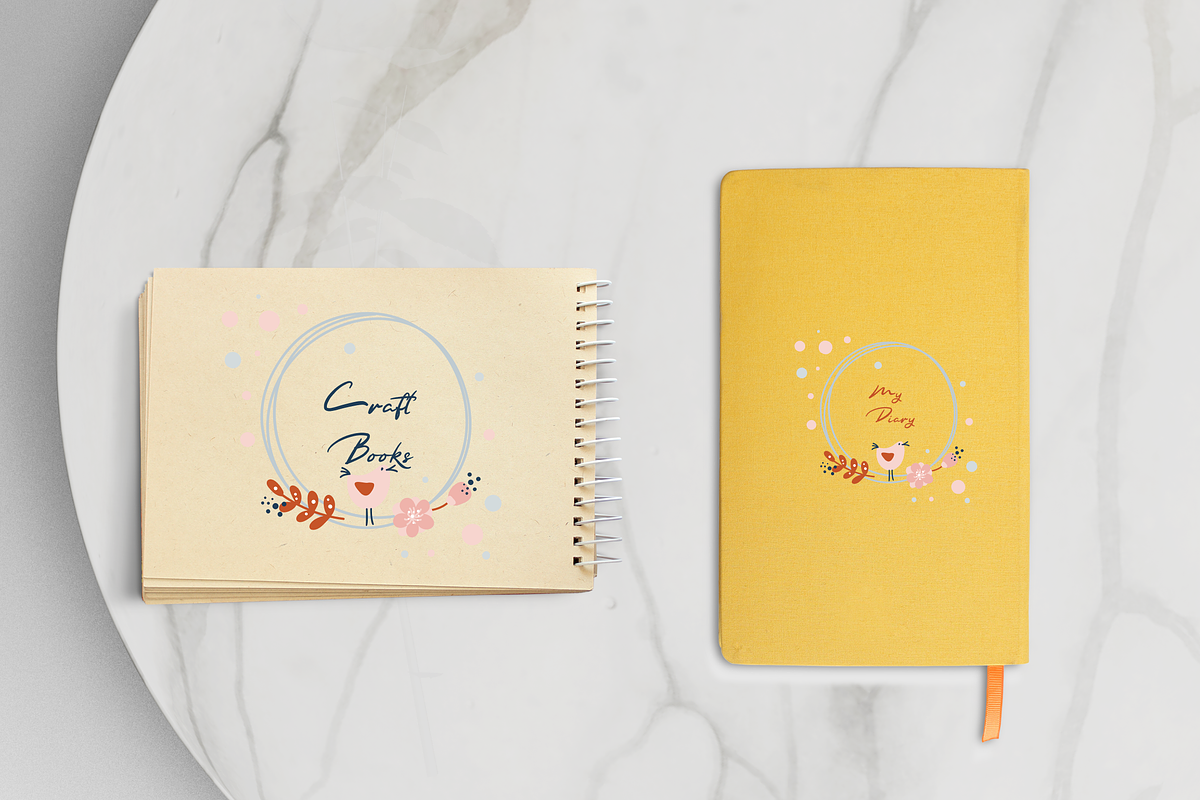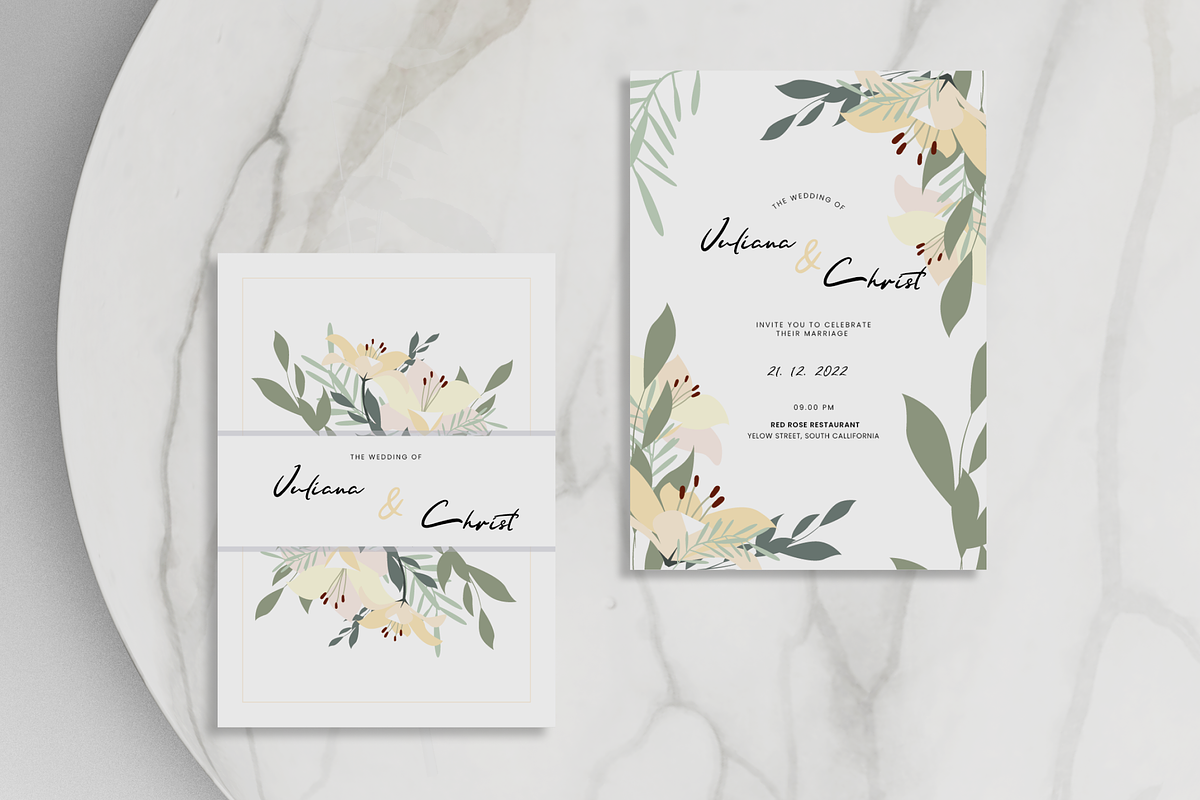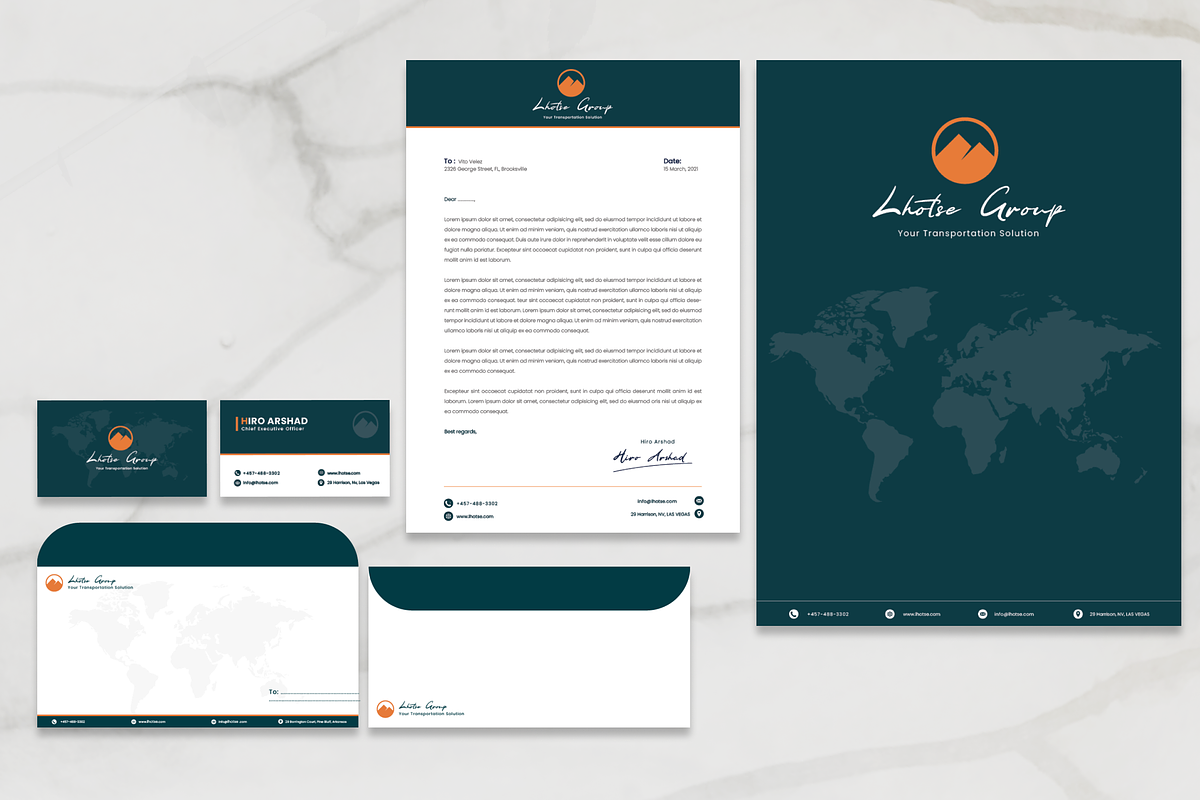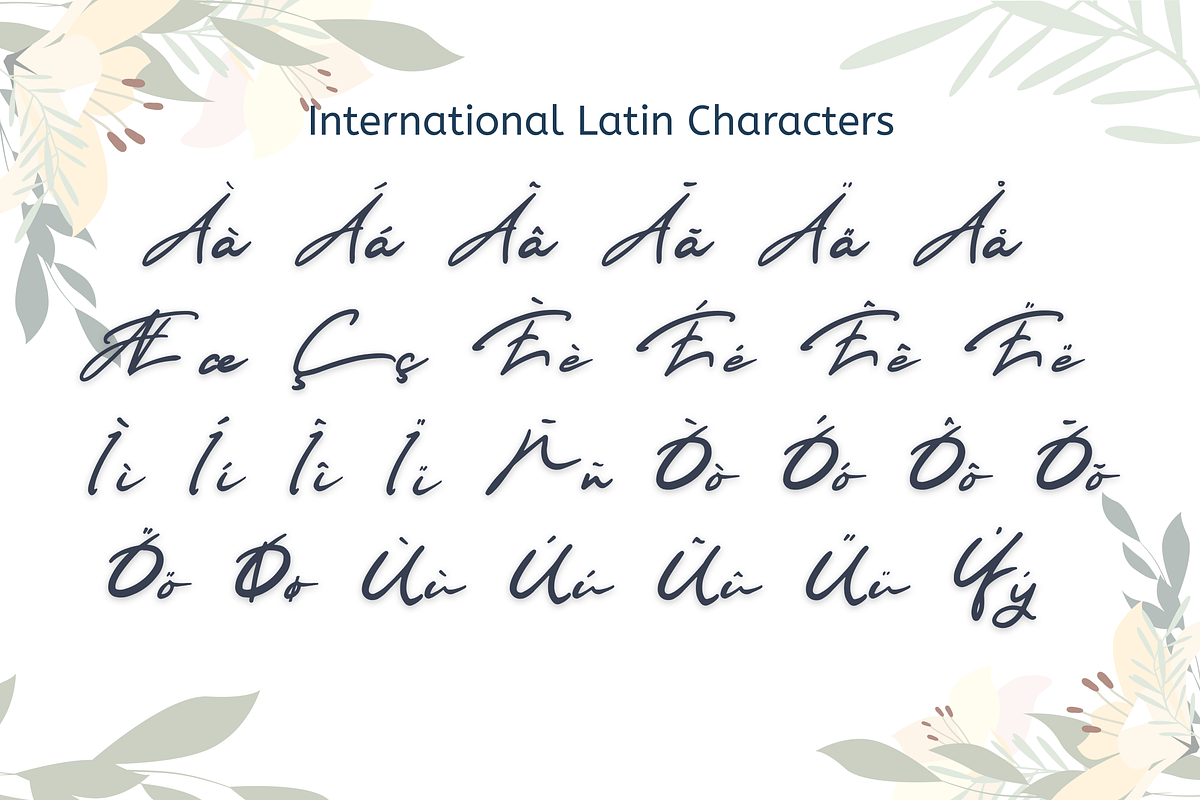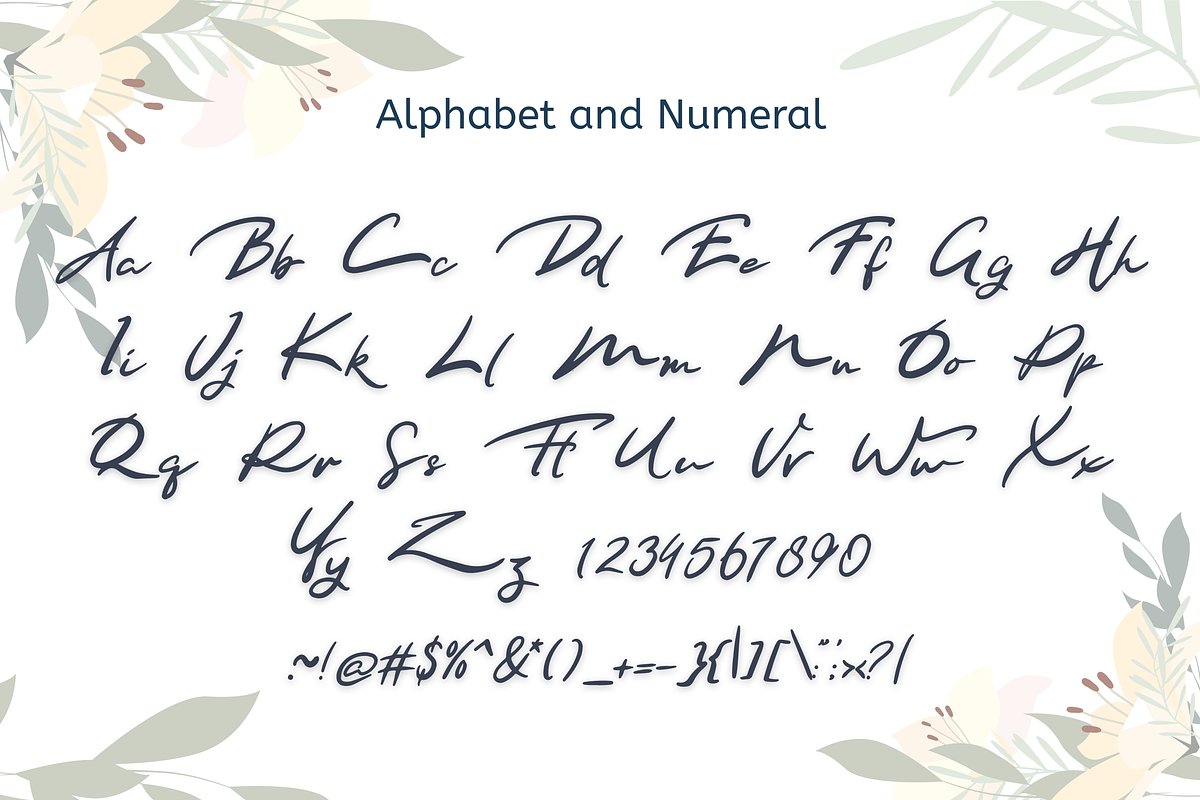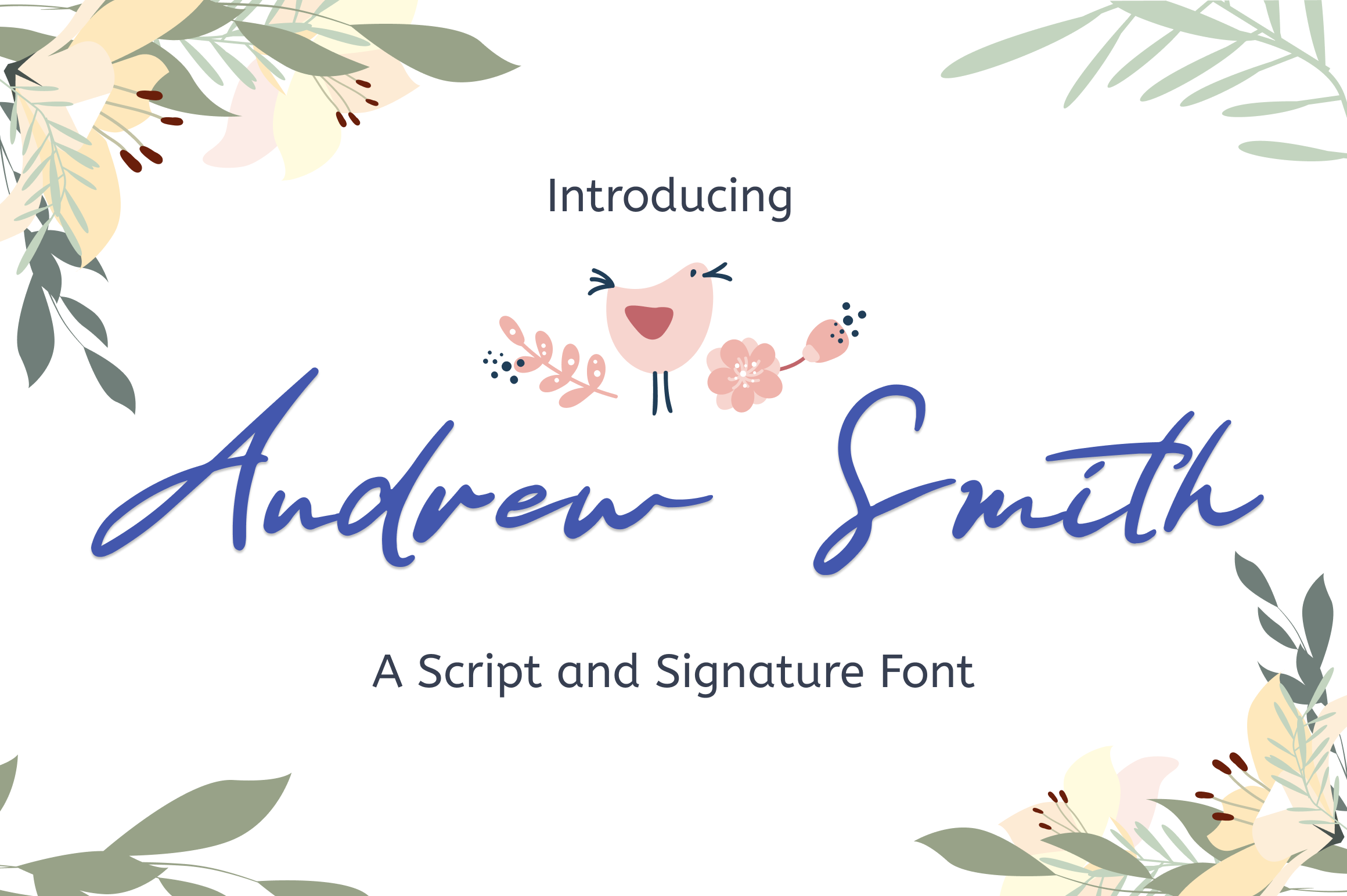
Andrew Smith Handwritten Script Font
Andrew Smith Handwritten Script Font is a flowing signature script font, described by an elegant touch, perfect for your favorite projects. Fall in love with its incredibly distinct and timeless style and use it to create spectacular designs!